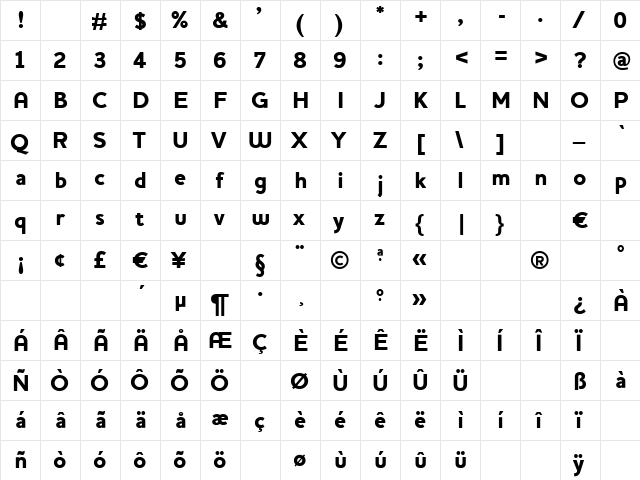
HouschkaBlack Regular
Design Context for HouschkaBlack Typeface
HouschkaBlack takes a measured approach to typography — its balanced proportions and neutral character make it a reliable workhorse for both digital and print work.